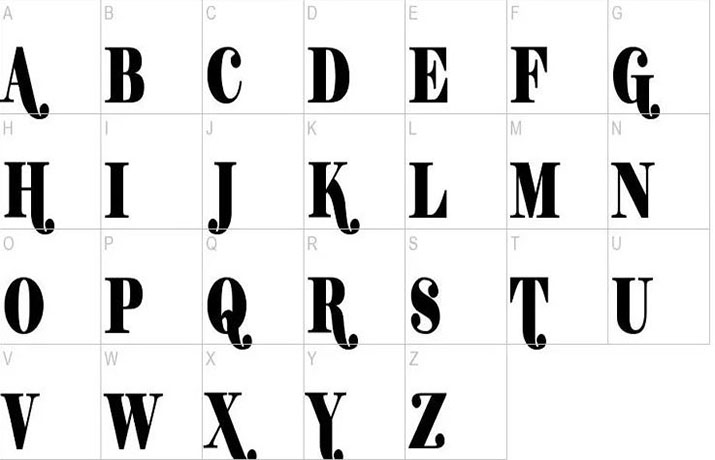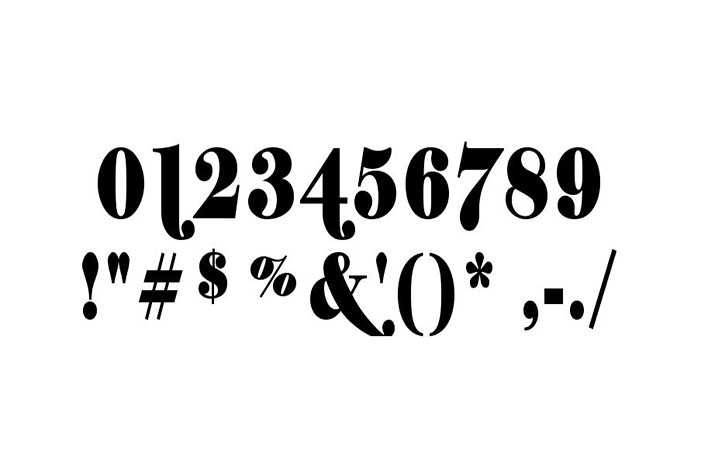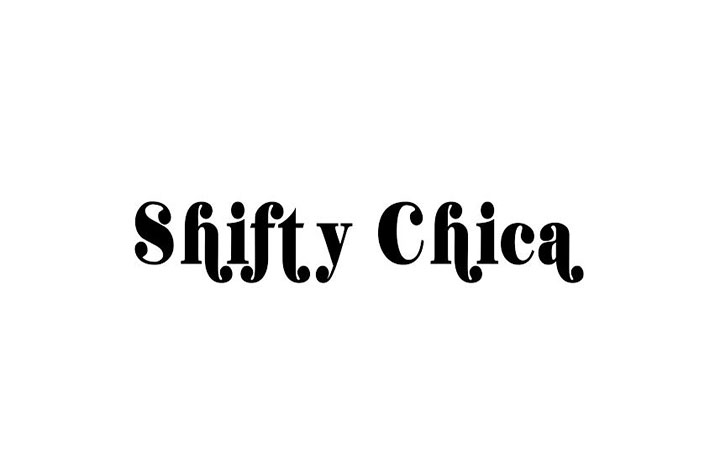
Shifty Chica Font is a playful display typeface that has decorative letterforms. Typodermic Fonts took charge of designing and publishing it primarily.
He created it with thick strokes and rounded corners to make it creative. For creating each letter he used a bouncy baseline, uneven letter heights, and slightly condensed letters. Those help to make it cool and stylish.
Due to its fun and unique style, you can use it for various works such as headlines, body text, logos, branding, posters, flyers, websites, social media banners, and more.
“Shifty Chica typeface comes in a single weight and True Type features. This font includes 183 glyphs, numbers, symbols, some punctuation marks, and 851 binary stored kerning pairs. Moreover, it also supports 64 languages.”
- Because of the playful shapes of the letters, it is ideal for a variety of uses, including logos, product packaging, product designs, comic covers, game titles, game developments, movie posters, unique emblems, product designs, special event cards, game graphics, cartoons, kid’s elements, headers, banners, flyers, headers, printing on cards, and much more.
This font supports 64 multilingual languages.